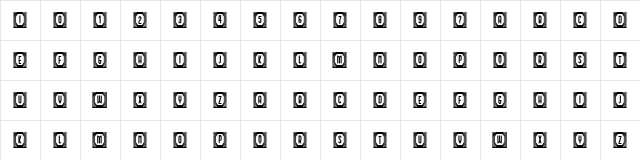
Capitalismo 10 Regular
Design Context for Capitalismo 10 Typeface
Capitalismo 10 is a composed and adaptable typeface that performs quietly and consistently across a wide range of design contexts.